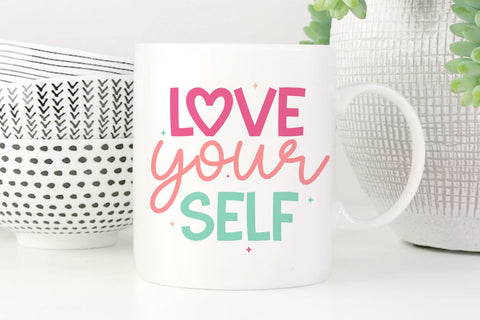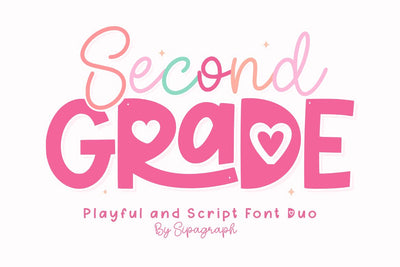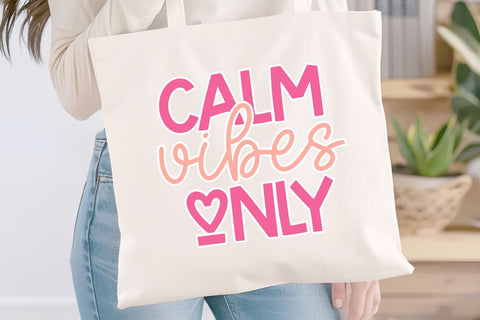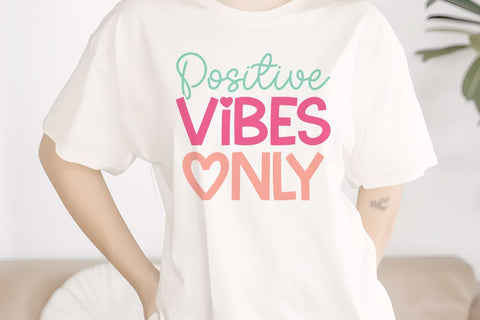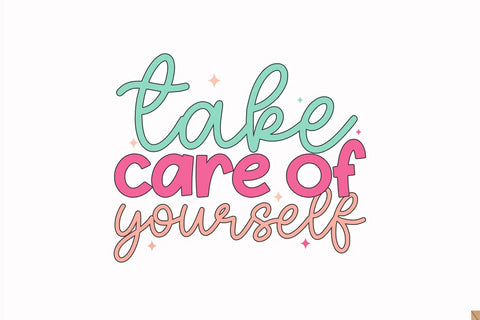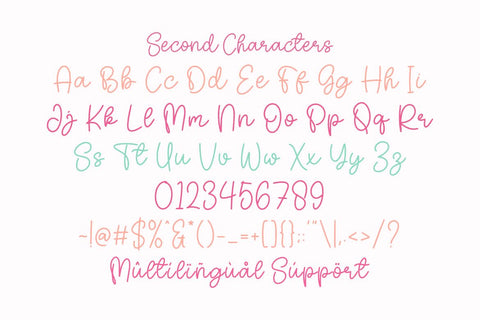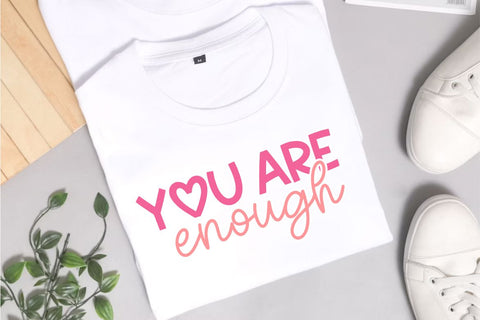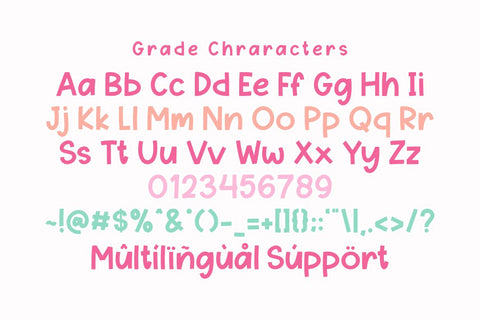
Second Grade - Charming Duo Font
Second Grade is a charming Font Duo specially crafted to bring a sense of joy and learning to your creative projects. This pack includes a flowing, friendly script font paired with a bold, chunky display font, allowing you to create perfectly balanced designs for classroom decor, school apparel, and educational materials. Its clean construction is specifically optimized for the crafting community, ensuring a seamless and frustration-free experience for vinyl cutting, sublimation, and high-quality digital printing.
Perfect for: creating high-impact SVG cut files, Back to School classroom decorations, personalized student pencil cases, custom teacher t-shirts, school event flyers, back-to-school stickers, and playful social media graphics. Whether you are a professional Print on Demand (POD) seller or a teacher crafting unique classroom supplies, this font duo provides the perfect balance of readability and whimsical personality for any project.
Great for holiday themes such as Back to School season, Teacher Appreciation Week, Birthdays, and Children's Day, adding a sweet, optimistic, and handcrafted personality to all your seasonal design collections!